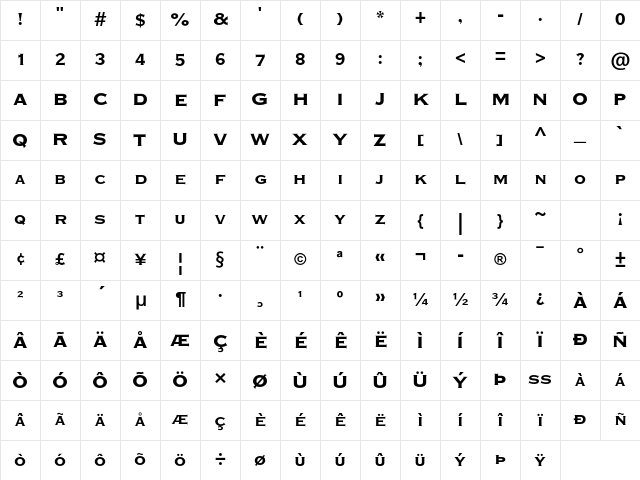
Complete Plate Gt Three Four MT Std Bd glyph index. Displaying only characters natively supported by Plate Gt Three Four MT Std Bd font.
Plate Gt Three Four MT Std is a composed and adaptable typeface that performs quietly and consistently across a wide range of design contexts. Its bold stroke weight gives it real presence on the page.